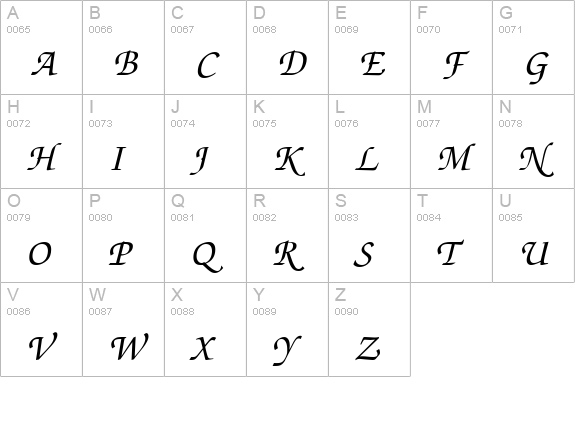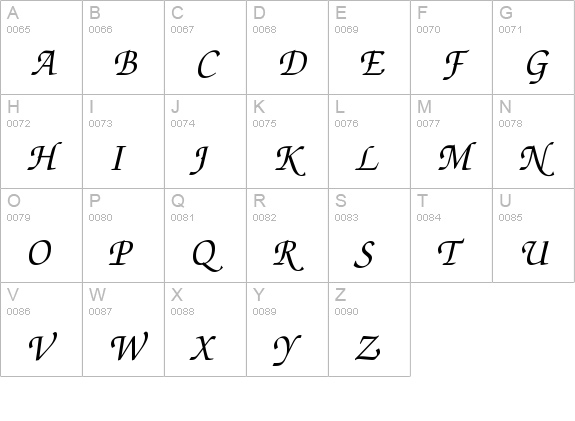
Chancery Script Medium SSi Medium is a balanced, medium-weight variant in the Chancery typeface family \xE2\x80\x94 well suited to sub-headlines, navigation, and balanced editorial work.
Chancery Script Medium SSi Medium font is a timeless and elegant typeface that exudes sophistication and charm. With its delicate curves and graceful strokes, this font is perfect for adding a touch of class to any design project. Whether you are creating wedding invitations, greeting cards, or elegant branding materials, Chancery Script Medium SSi Medium font will elevate your work to new heights. The best part? This exquisite font is available for free download at FontsMarket.com. So go ahead and enhance your designs with the beauty and elegance of Chancery Script Medium SSi Medium font today!